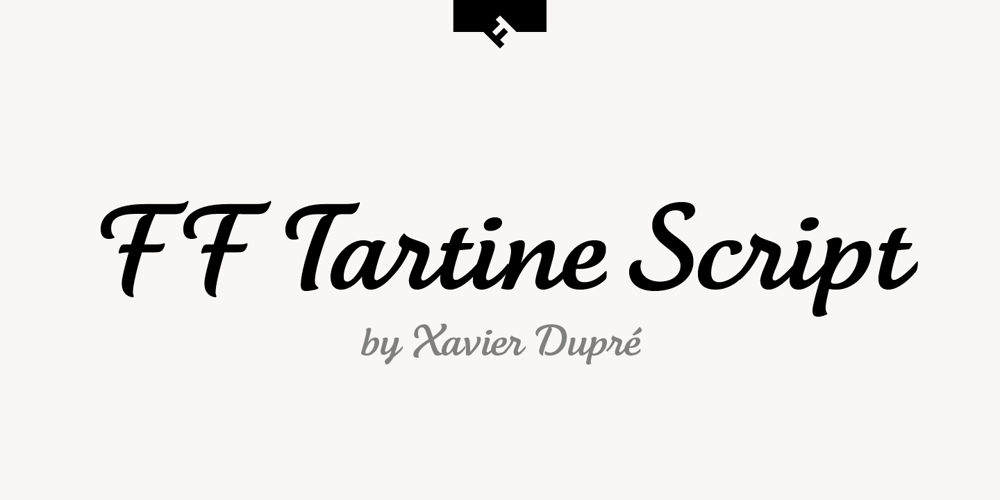
FF Tartine Script Font Family was designed by Xavier Dupré, Panos Haratzopoulos and published by FontFont. FF Tartine Script contains 3 styles and family package options. French type designer Xavier Dupré created this script FontFont between 2002 and 2007. The family contains 3 weights: Regular, Bold, and Black and is ideally suited for advertising and packaging, logo, branding and creative industries as well as sports. FF Tartine Script provides advanced typographical support with features such as ligatures, alternate characters, case-sensitive forms, fractions, super- and subscript characters, and stylistic alternates. It comes with a complete range of figure set options – oldstyle and lining figures, each in tabular and proportional widths. As well as Latin-based languages, the typeface family also supports the Greek writing system.